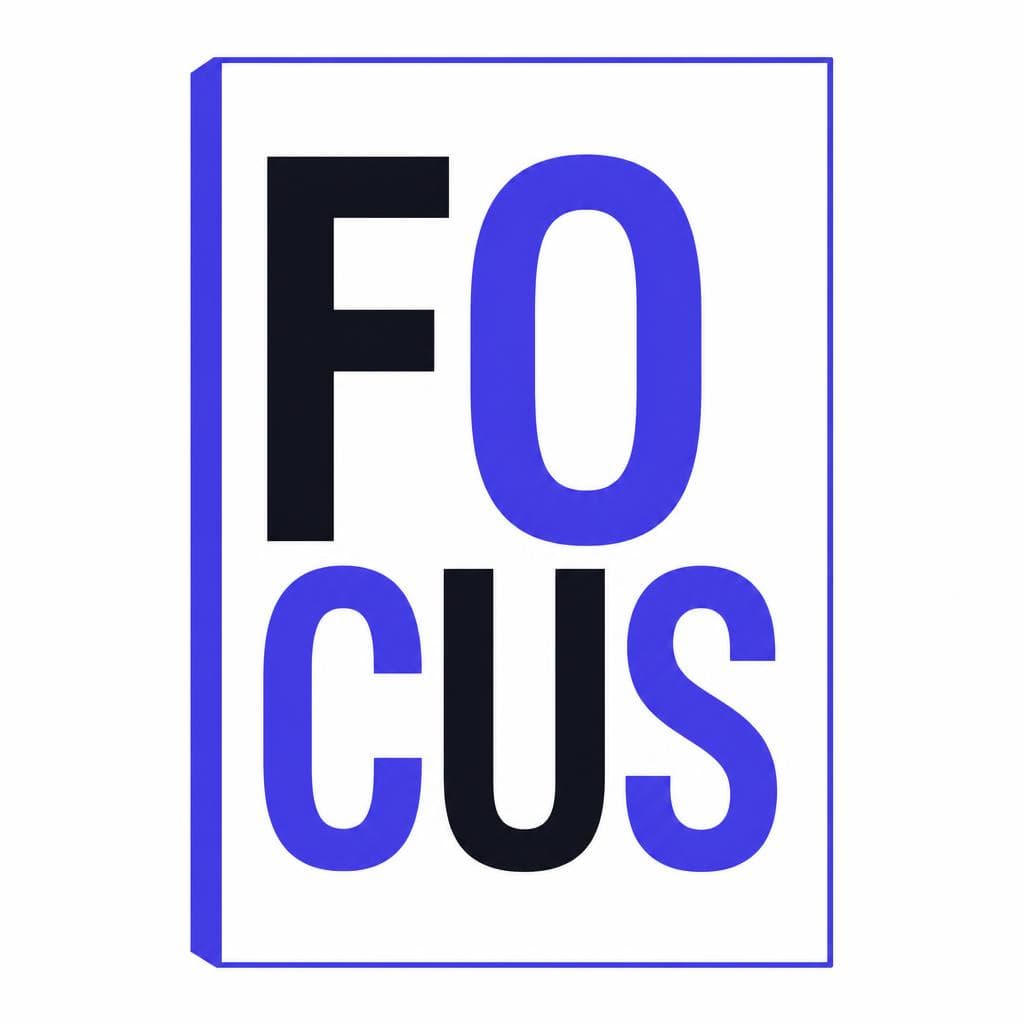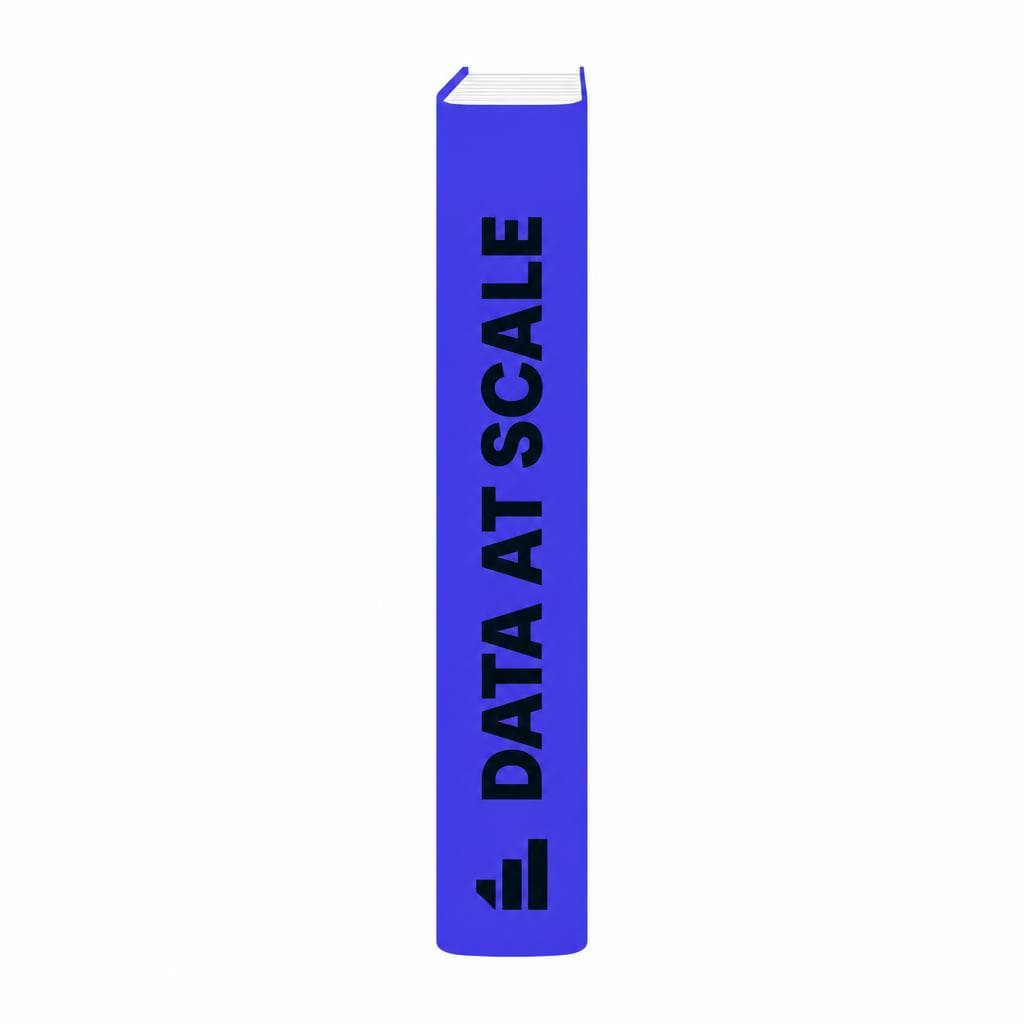
A book cover has only a few seconds to make its promise. Before a reader notices the plot description, author blurb, or review quote, they register color, imagery, and—often most powerfully—the title. The right font for a book cover tells readers whether they are about to enter a sweeping historical romance, a fast-moving thriller, an unsettling horror novel, or a warm contemporary memoir.
That makes typography more than decoration. A book title font establishes tone, suggests audience, and helps a cover compete at thumbnail size in online bookstores as well as on a physical shelf. When the type feels wrong, even strong artwork can look amateur or misleading. When it feels right, the title becomes part of the story world.
This guide explains how to identify the visual qualities of a typeface you admire, match a reference responsibly, and create a distinctive alternative when the exact lettering is unavailable or unsuitable to license. Whether you are redesigning a classic, preparing an indie release, or trying to recreate book font inspiration from a photographed cover, the goal is not merely to find a similar font. It is to make deliberate book cover typography choices that help sell the specific story inside.
How Typography Helps Sell Books
A title is a signal, not just a label
Readers use visual shortcuts to decide what deserves their attention. Book cover design font choices are one of the fastest and most reliable shortcuts because letterforms carry emotional associations. A high-contrast serif with thin hairlines may feel literary, elegant, historic, or romantic. A compressed sans serif in all caps can imply urgency, suspense, or modern authority. Rough, uneven letters may suggest danger, handmade craft, folklore, or rebellion.
Typography also creates hierarchy. In a typical cover, the title must be read first, the author name second, and a subtitle, series label, or endorsement third. That order is not automatic: it comes from scale, weight, contrast, spacing, and placement. A beautiful title font for book projects can still fail if it disappears against the background or competes with the author name. Test every cover at the size readers will actually encounter—especially a small retailer thumbnail. If the title becomes a gray blur, simplify the treatment before adding more effects.
The most effective publishing typography supports the premise rather than illustrating it too literally. For example, a novel about a crumbling seaside estate does not necessarily need a dripping “haunted” font. An elegant transitional serif with slightly expanded tracking may communicate old money, distance, and unease more convincingly. Likewise, a romantic comedy may benefit from a bold, friendly sans serif or loose script, but the final choice should reflect its energy: witty and editorial, soft and cozy, or bright and chaotic.
Think of type as a casting decision. Ask what voice the title should have if it could speak aloud. Is it restrained, intimate, grand, playful, clinical, dangerous, or nostalgic? That answer provides a more useful direction than asking only whether a font is “pretty.”
Understand Genre Expectations Before Choosing a Font
Use conventions as a starting point, not a cage
Genre conventions help readers identify a book quickly, particularly when they are browsing unfamiliar authors. They are not rigid rules, but ignoring them without a strategic reason can create confusion. The best book cover typography usually balances familiarity with one distinctive detail.
Thrillers and crime novels often use bold condensed sans serifs, hard-edged geometric forms, distressed capitals, or stark serif type. Tight spacing and high contrast can create pressure and speed. For a domestic thriller, a clean contemporary sans serif paired with one unsettling photographic detail may work better than overtly aggressive lettering. Epic fantasy frequently leans toward custom serif lettering, engraved details, decorative terminals, and spacious composition, while contemporary fantasy may move closer to editorial serif styles or expressive display type.
Romance covers vary widely by subgenre. Historical romance commonly uses refined serifs, italic details, flourishes, and softer palettes. Contemporary rom-com covers often use approachable rounded sans serifs, hand-lettered styles, or confident brush scripts. Dark romance may adopt sharp serifs, blackletter influences, or dramatic contrast. Literary fiction tends to favor thoughtful restraint: classic serifs, modern editorial type, unusual spacing, or a carefully chosen expressive face. Nonfiction often prioritizes clarity and authority, using readable sans serifs or sturdy serifs with strong subtitle hierarchy.
A useful exercise is to create a genre reference board with 20 to 30 current covers, not just famous older examples. Look for repeated patterns in case, width, serif style, texture, and title placement. Then identify the visual territory that is overused. You may discover that every comparable title uses a narrow all-caps sans serif; choosing a similarly tense but more characterful serif could make your cover feel fresh without losing its market signal.
The goal is not to copy a bestseller’s book title font. It is to understand the promise that typography is making to the reader, then make that promise honestly for your own book.